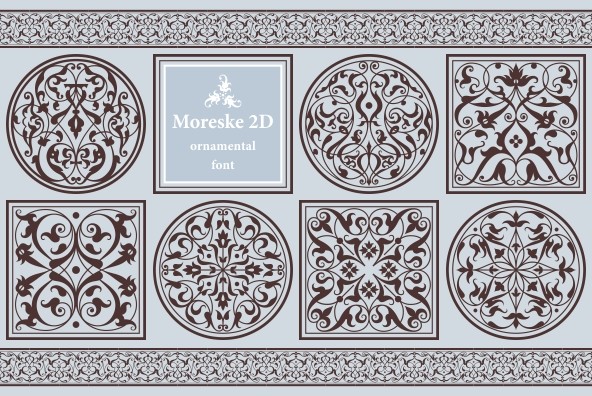
Moreske 2D
The name Moreske, Maureske, Morisca, Morisco comes from Spanish “Mauritanian”.This ornament is based on the greenery motive with strongly stylized stems and leaves fancifully interlacing. Such ornaments were widely used in the 16th century in various decorations from architecture to household goods, and book covers in particular.The font contains high quality vector graphics with elaborate attention to details. This collection consists of friezes (borders) and closed compositions in the shape of circles, squares, rectangles and triangles that can be organized into repeats (patterns). Morseke 2D can be easily used not only in a traditional approach, but also in grunge stylistics enriching your compositions.